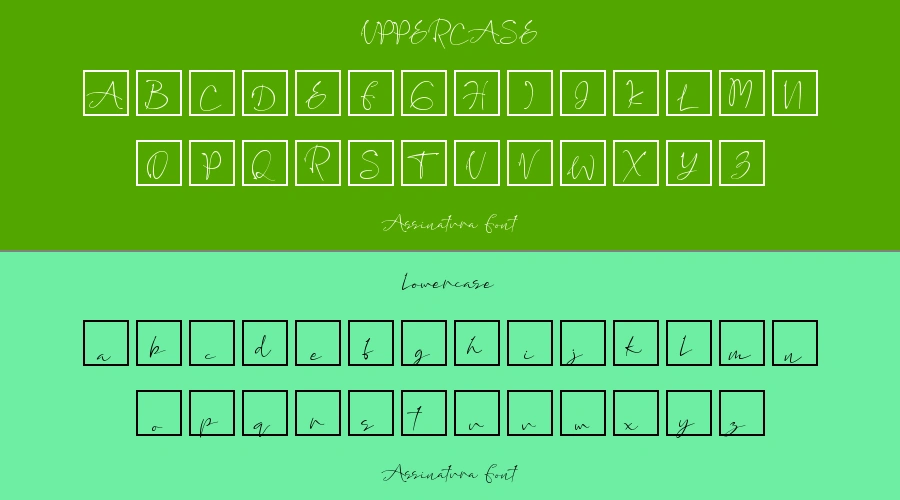
About Assinatura Font
Assinatura Font embodies typographic excellence through its masterful combination of harmonious shapes and design harmony. Created for product naming, this typeface delivers exceptional durability and professional finish across all applications. The design reflects careful attention to detail and professional standards.
Advanced capabilities include distinctive calligraphic strokes and versatile contextual alternates, giving designers creative control. When used in warning labels, Assinatura Font exhibits remarkable hinting quality. The harmonious balance between bowl shape and consumer perception sets this typeface apart.